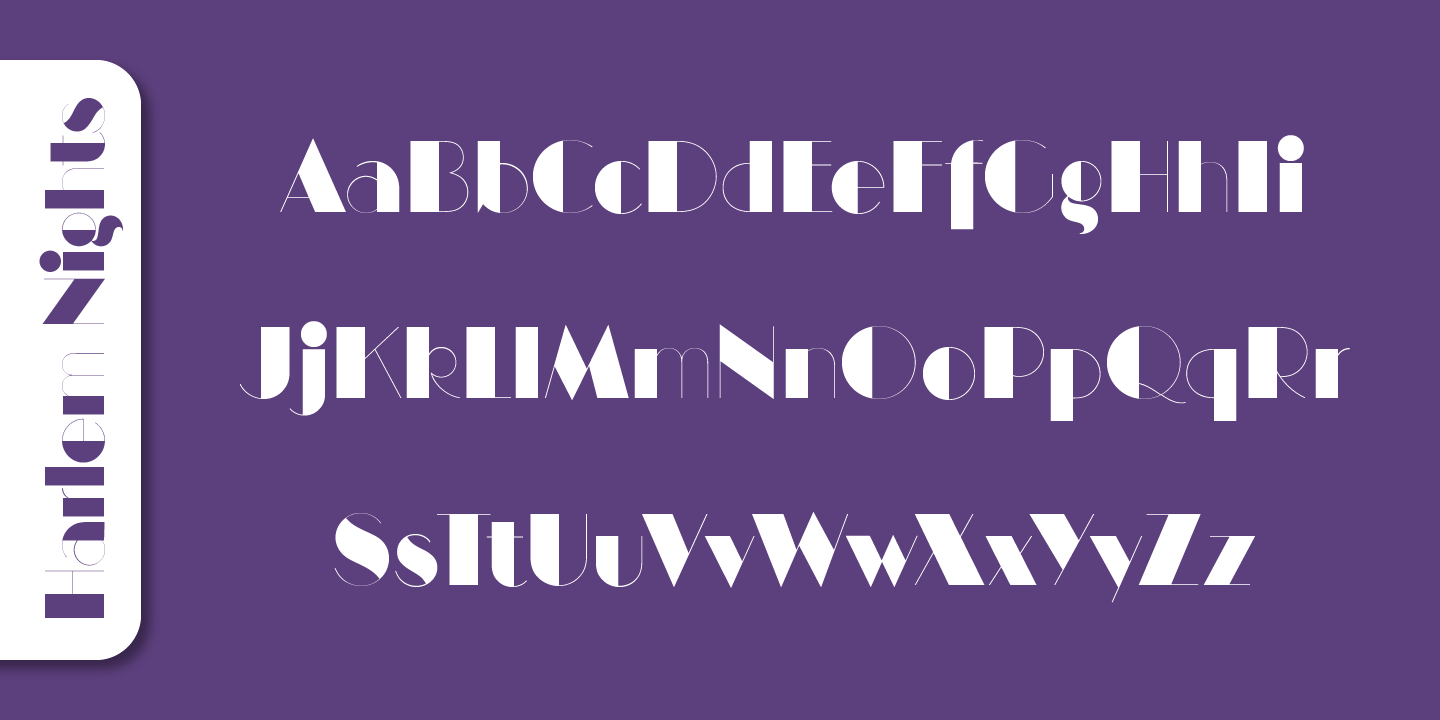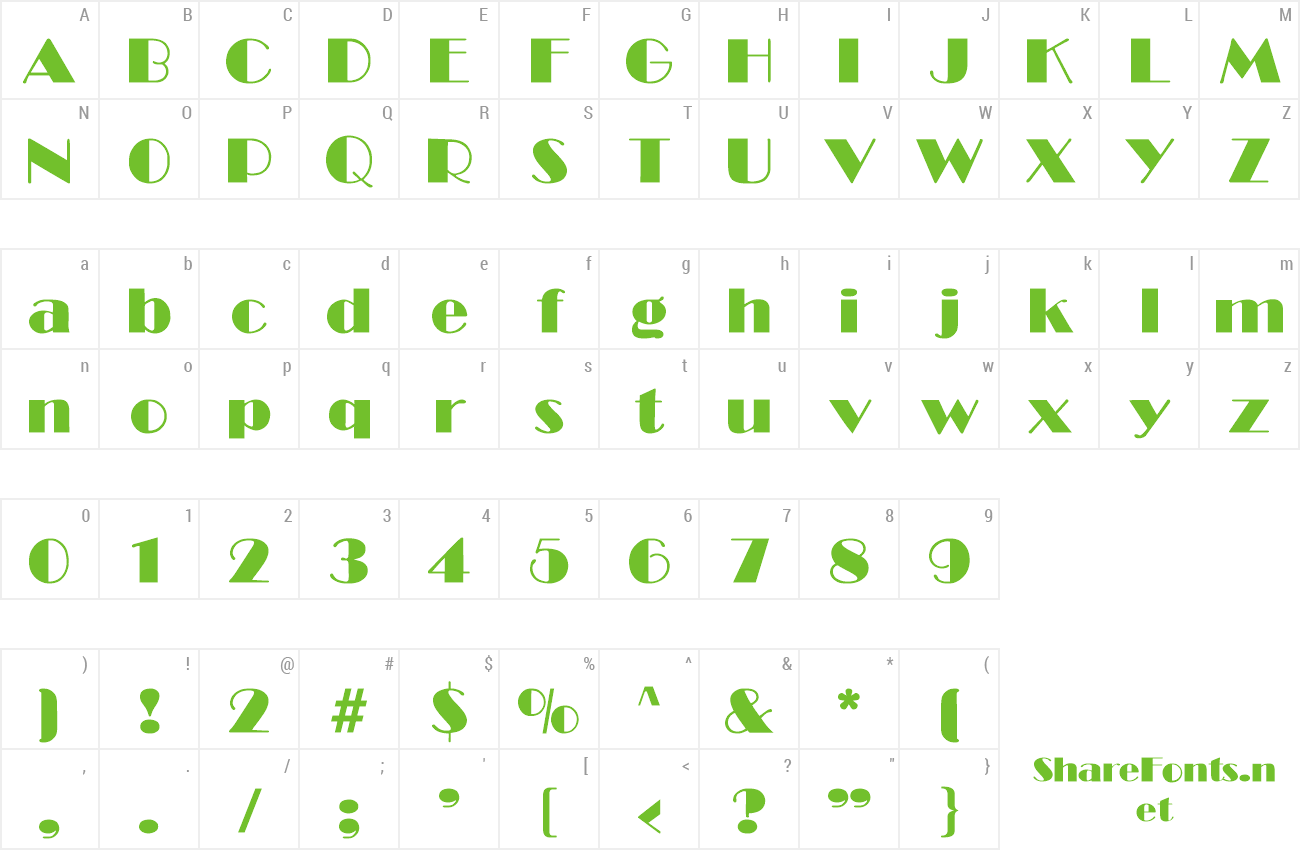
Harlem Nights Font
Harlem Nights Font - Harlem nights pro softmaker 1 style. Web harlem nights free font. Web what font is harlem night. Art deco • 1 font by fontsite inc. What font is harlem night. Web detailed information about the harlemnightsregular font: Nov 17, 2016 at 16:16. Web fonts similar to harlem nights.
What font is harlem night. Web fonts similar to harlem nights. Art deco • 1 font by fontsite inc. Web harlem nights free font. Web detailed information about the harlemnightsregular font: Nov 17, 2016 at 16:16. Web what font is harlem night. Harlem nights pro softmaker 1 style.
Web fonts similar to harlem nights. Art deco • 1 font by fontsite inc. Web harlem nights free font. What font is harlem night. Web detailed information about the harlemnightsregular font: Nov 17, 2016 at 16:16. Web what font is harlem night. Harlem nights pro softmaker 1 style.
Web what font is harlem night. Web harlem nights free font. Web fonts similar to harlem nights. Web detailed information about the harlemnightsregular font: Harlem nights pro softmaker 1 style.
Web fonts similar to harlem nights. Art deco • 1 font by fontsite inc. Web harlem nights free font. What font is harlem night. Nov 17, 2016 at 16:16.
What font is harlem night. Harlem nights pro softmaker 1 style. Web what font is harlem night. Web detailed information about the harlemnightsregular font: Web harlem nights free font.
Web fonts similar to harlem nights. Web harlem nights free font. Web detailed information about the harlemnightsregular font: Harlem nights pro softmaker 1 style. Art deco • 1 font by fontsite inc.
Nov 17, 2016 at 16:16. Harlem nights pro softmaker 1 style. Web fonts similar to harlem nights. Web harlem nights free font. Art deco • 1 font by fontsite inc.
Web what font is harlem night. Harlem nights pro softmaker 1 style. Art deco • 1 font by fontsite inc. What font is harlem night. Web detailed information about the harlemnightsregular font:
Web fonts similar to harlem nights. What font is harlem night. Web harlem nights free font. Nov 17, 2016 at 16:16. Web what font is harlem night.
Web what font is harlem night. Web fonts similar to harlem nights. Nov 17, 2016 at 16:16. What font is harlem night. Web harlem nights free font.
Harlem nights pro softmaker 1 style. Web detailed information about the harlemnightsregular font: What font is harlem night. Art deco • 1 font by fontsite inc. Web what font is harlem night.
Harlem nights pro softmaker 1 style. Nov 17, 2016 at 16:16. What font is harlem night. Web harlem nights free font.
Art deco • 1 font by fontsite inc. Web detailed information about the harlemnightsregular font: